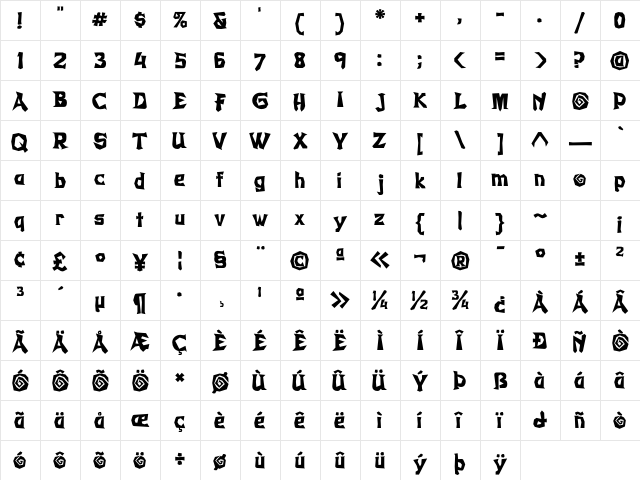
WhassisICG Calm
Style: Calm
WhassisICG Family
WhassisICG Calm
Design Context for WhassisICG
WhassisICG is a composed and adaptable typeface that performs quietly and consistently across a wide range of design contexts.